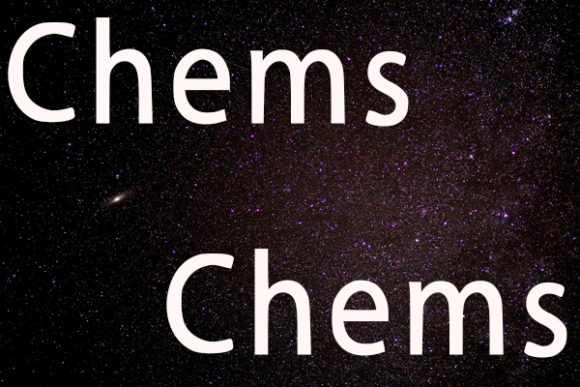
Introducing Chems Font: A Simple yet Powerful Sans Serif Typeface
Are you a designer or crafter looking for a font that can elevate your creative projects? Look no further than Chems Font, a beautiful and professional sans serif typeface that is perfect for a wide range of applications. In this article, we’ll take a closer look at Chems Font, its features, and how you can use it to take your designs to the next level.
What is Chems Font?
Chems Font is a simple sans serif font that is designed to be both elegant and versatile. Its clean lines and minimalist aesthetic make it perfect for use in a variety of contexts, from film posters and headlines to block letters, subheadings, and logo designs. Whether you’re working on a creative project or simply looking for a font to add some personality to your writing, Chems Font is a great choice.
Key Features of Chems Font
So what makes Chems Font so special? Here are just a few of its key features:
- Simple yet elegant design: Chems Font has a clean and minimalist aesthetic that makes it perfect for use in a wide range of contexts.
- Versatile: Chems Font is suitable for use in film posters, headlines, block letters, subheadings, logo designs, and more.
- Professional look and feel: Chems Font is designed to look professional and polished, making it perfect for use in high-end designs.
- Easy to read: Despite its elegant design, Chems Font is also easy to read, making it perfect for use in body text as well as headlines.
Uses for Chems Font
So what can you use Chems Font for? The possibilities are endless, but here are a few ideas to get you started:
- Film posters: Chems Font is perfect for use in film posters, where its bold and eye-catching design can help grab the attention of potential viewers.
- Headlines: Chems Font is also great for use in headlines, where its clean lines and elegant design can help add a touch of sophistication to your writing.
- Logo designs: Chems Font is a great choice for logo designs, where its simple yet elegant design can help create a professional and memorable brand identity.
- Block letters: Chems Font is perfect for use in block letters, where its bold and eye-catching design can help add a touch of personality to your writing.
- Subheadings: Chems Font is also great for use in subheadings, where its clean lines and elegant design can help add a touch of sophistication to your writing.
Why Choose Chems Font?
So why should you choose Chems Font for your next creative project? Here are just a few reasons:
- Unique and distinctive design: Chems Font has a unique and distinctive design that will help your creative projects stand out from the crowd.
- High-quality: Chems Font is a high-quality font that is designed to look professional and polished.
- Easy to use: Chems Font is easy to use and can be easily integrated into your creative projects.
- Versatile: Chems Font is versatile and can be used in a wide range of contexts.
| Font Name | Chems Font |
| Author | TelemlyCreations |
In conclusion, Chems Font is a simple yet powerful sans serif typeface that is perfect for designers and crafters looking to elevate their creative projects. With its clean lines, elegant design, and versatile nature, Chems Font is a great choice for use in a wide range of contexts, from film posters and headlines to block letters, subheadings, and logo designs. So why not give Chems Font a try and see how it can help take your designs to the next level?
Tips and Tricks for Using Chems Font
Here are a few tips and tricks for using Chems Font:
- Experiment with different sizes and colors: Chems Font looks great in a variety of sizes and colors, so don’t be afraid to experiment and find the look that works best for your creative project.
- Use it in combination with other fonts: Chems Font can be used in combination with other fonts to create a unique and eye-catching design.
- Pay attention to spacing and kerning: Make sure to pay attention to spacing and kerning when using Chems Font to ensure that it looks its best.